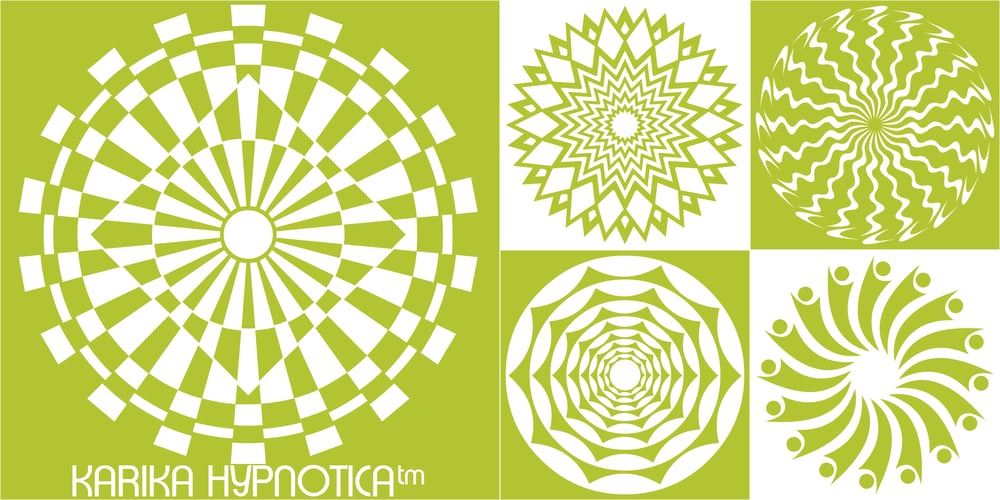
Karika Hypnotica Font Family was designed by Denise Koehler and published by Deniart Systems. Karika Hypnotica contains 1 styles and family package options. Karika Hypnotica is the 4th volume in the Karika series of swirly circular symbols. The 52 original designs feature hypnotic motifs in circular symmatrical forms. A splendid addition to any illustration or design project such as backgrounds, greeting cards, posters, etc. Karika Hypnotica’s characters are symmetrically sized in height and width so they’ll work charmingly together with our Karika Hearts, Karika Swirls and Karika Encore symbol fonts.